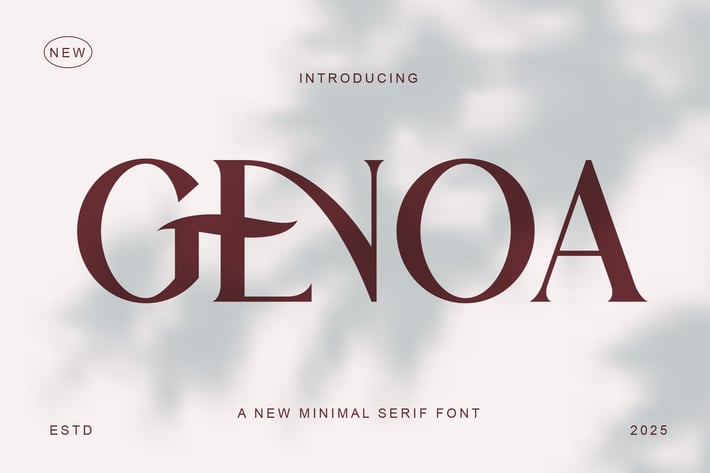
Genoa - A New Minimal Serif Font
Introducing Genoa A minimal, beautiful and modern serif typeface. With its modern and minimalist appearance,Genoa brings a luxurious, classy and clean impression to your projects such as websites, modern logos, branding identities, social media quotes, wedding stationery, magazines and various other needs!
Genoa features unique and classy capital letters A to Z so that Genoa is a beautiful font that can be adapted to various projects and jobs that you want.